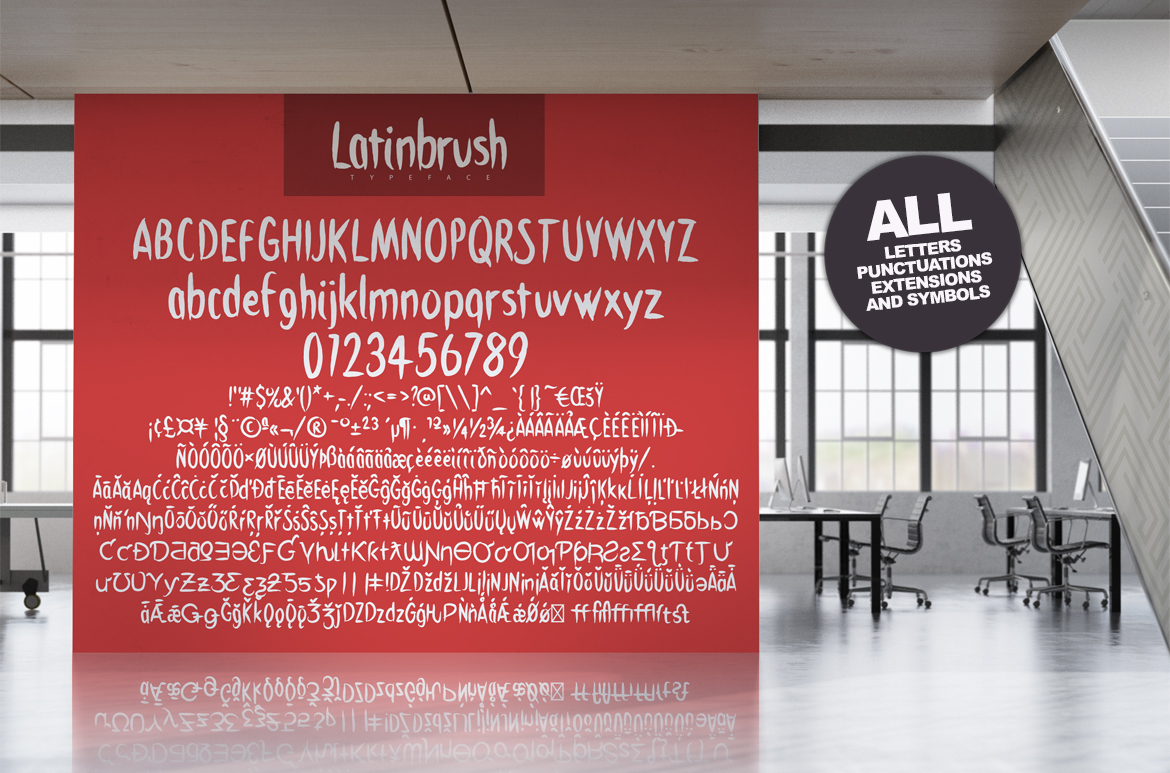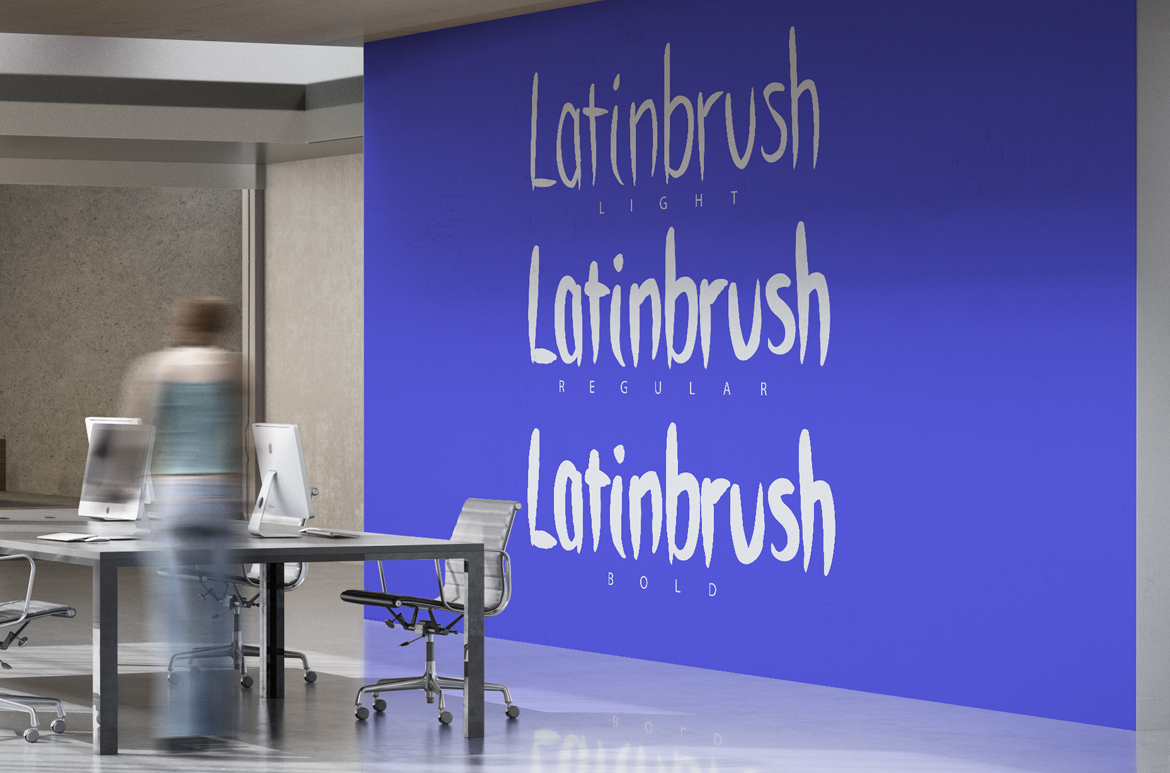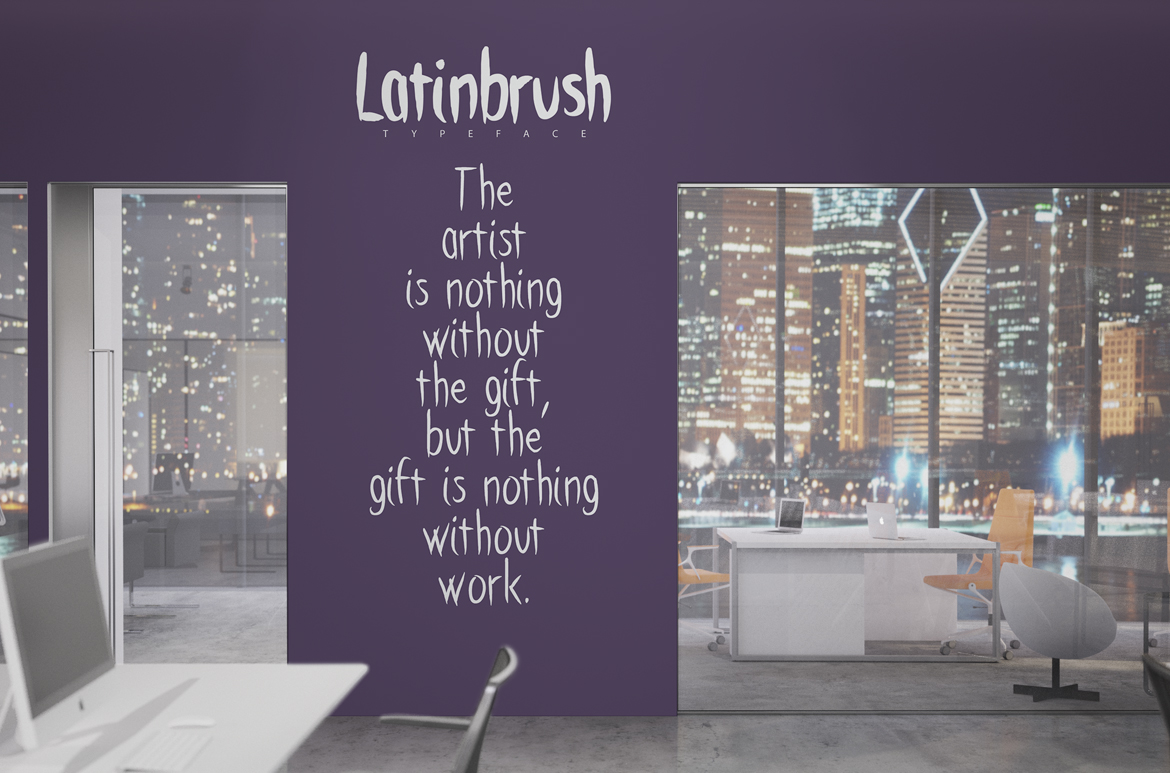
HomeScript FontsLatinbrush Font Script Fonts Latinbrush Font FacebookXPinterestWhatsApp Latinbrush Font Poster 2 Latinbrush Font Poster 3 Latinbrush Font Poster 4 About Latinbrush Font Latinbrush is a hand painted script font created by Pere Esquerrà. DOWNLOAD ON CREATIVE FABRICAThis font is sold and delivered by Creative Fabrica. Font Canyon may earn a commission if you buy through this link. People also explored Daviya Font Nouveline Font Hachimitsu Theodore Font Amsterdam Bold Font Marshella Font Nevermind Font Santa Gifts Font Grenale Slab Font 296 0 TagsLatinbrush Font Previous articleLluc FontNext articleKikuri Font LEAVE A REPLY Cancel reply Comment: Please enter your comment! Name:* Please enter your name here Email:* You have entered an incorrect email address! Please enter your email address here Website: Save my name, email, and website in this browser for the next time I comment. Personal Use Free Vilsuve Personal Use Free Read more about this font 08 Underground Personal Use Free Read more about this font Super Discount Personal Use Free Read more about this font Ammanda Personal Use Free Read more about this font BLOG Using Fonts in Digital Marketing: Tips to Strengthen Your Brand Identity In the realm of digital marketing, every visual element plays a crucial role in shaping a brand's identity, and fonts are no exception. The... Best Fonts for YouTube Videos: Make Your Thumbnails Stand Out Transform Your Website: Elevate Your Typography with 7 Best Web Font Generators Best Fonts for T-Shirt Design – Top 2025 Picks